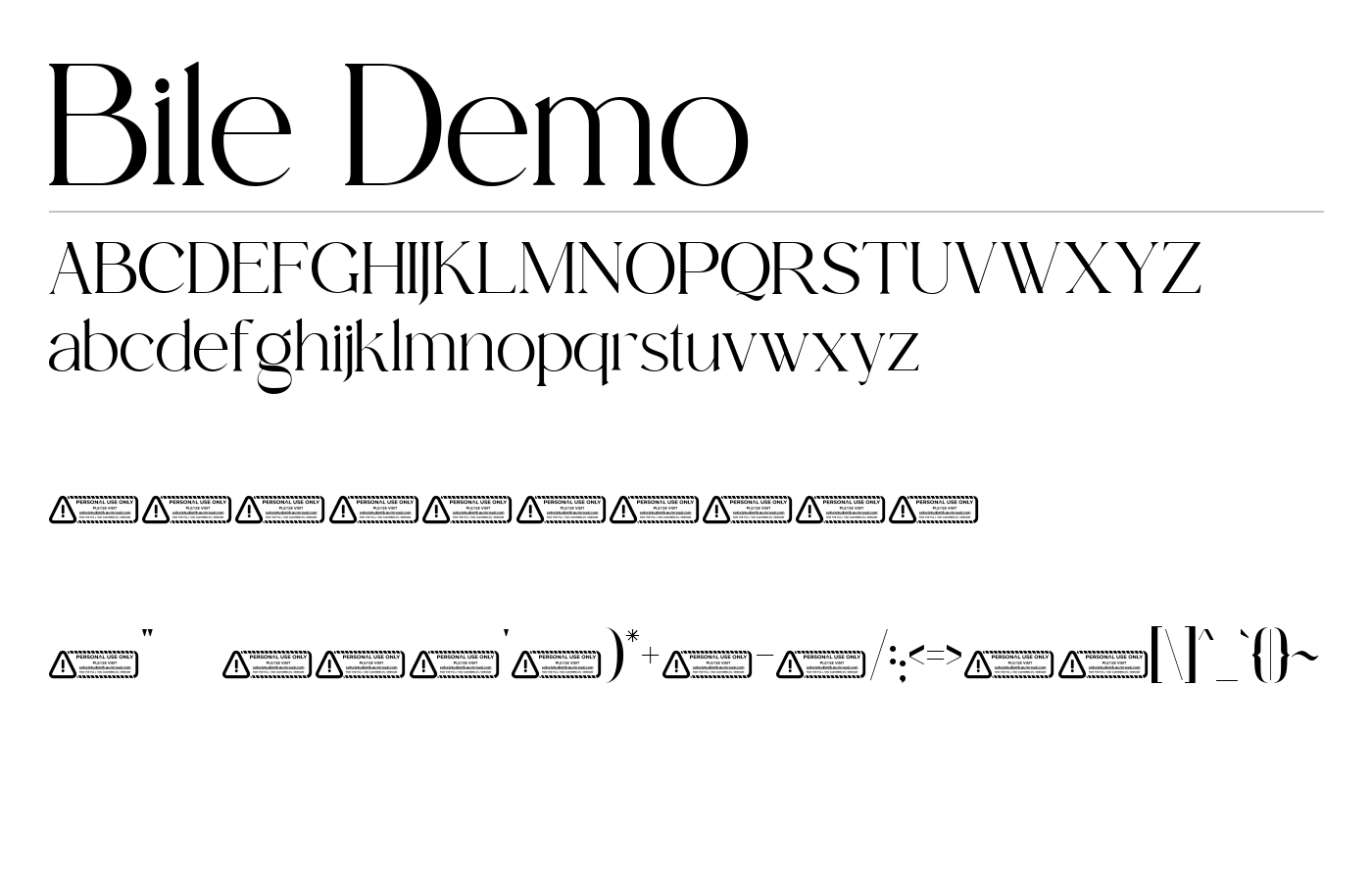
Bile Demo is an elegant serif font with a modern, high-contrast design that features thin, sharp serifs and clean, slender letterforms. It exudes sophistication and works beautifully for luxury branding, editorial headlines, and fashion-focused projects where a refined and stylish appearance is desired. This font’s delicate strokes and distinctive character shapes make it perfect for creating a polished, upscale impression.
Bile Demo Font